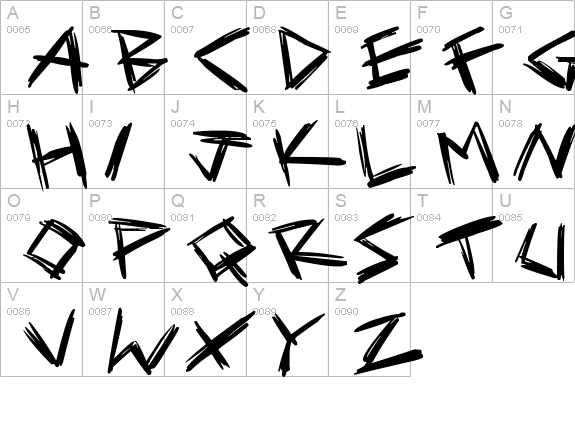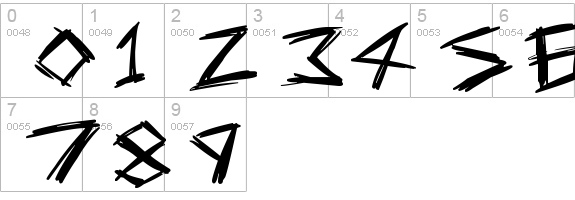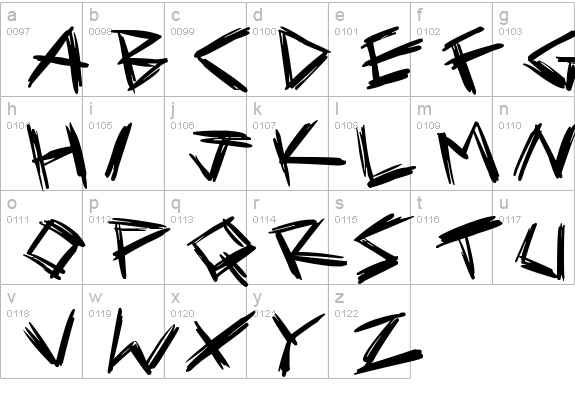
Serial Killers Font Details
Introducing the Serial Killers font, a chilling and ominous typeface that embodies the dark and sinister world of notorious serial killers. With its sharp edges and haunting appearance, this font is perfect for creating spine-tingling designs and projects that demand a touch of mystery and intrigue.